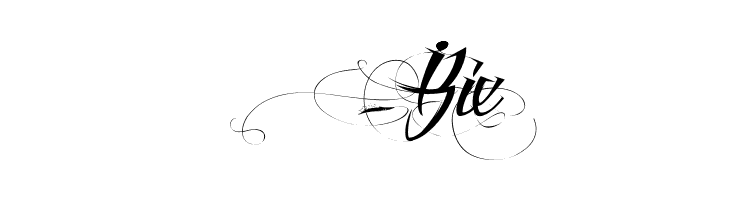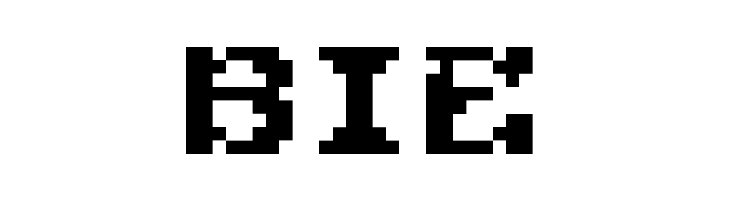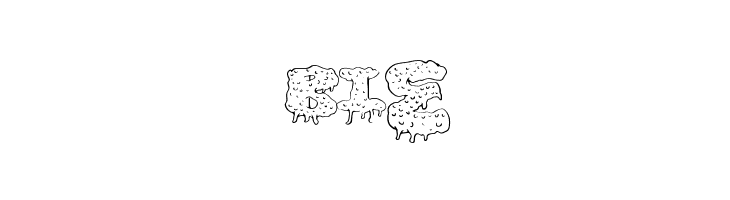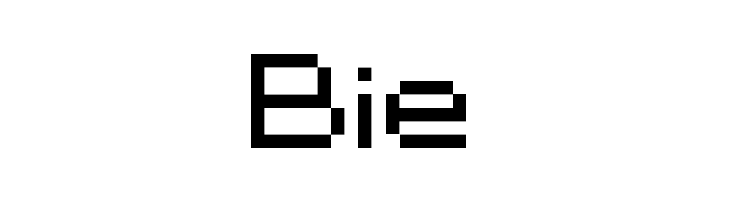
A bold, 3D cube-themed font with intricate, textured characters.
An intricate and decorative font with elegant loops and curves.
An ornate and decorative script font with elaborate swirls and flourishes.
A bold, jagged font with a hairy, chaotic style.
A rugged, textured font with a natural, wild aesthetic.
A playful, dripping font with a gooey, textured appearance.
A pixelated, retro-style font inspired by classic video game graphics.
A pixelated, retro-style font inspired by early video game graphics.
A pixelated, retro-style font with a blocky, geometric design.